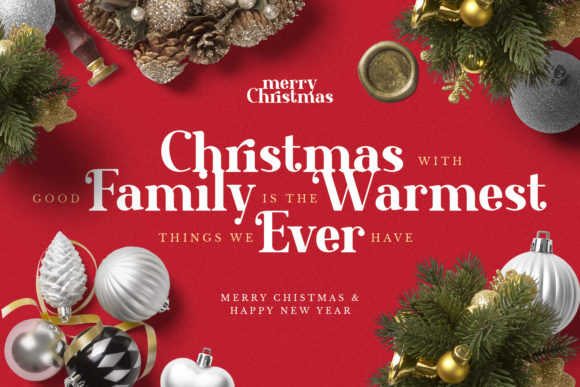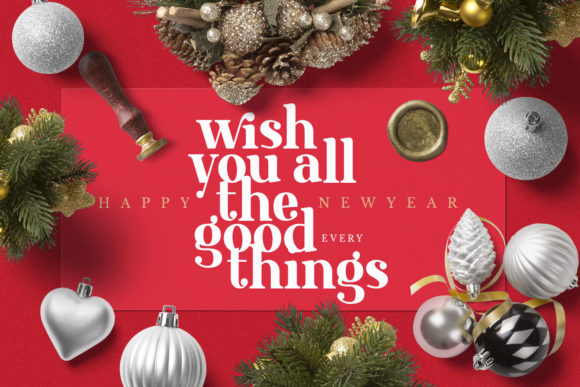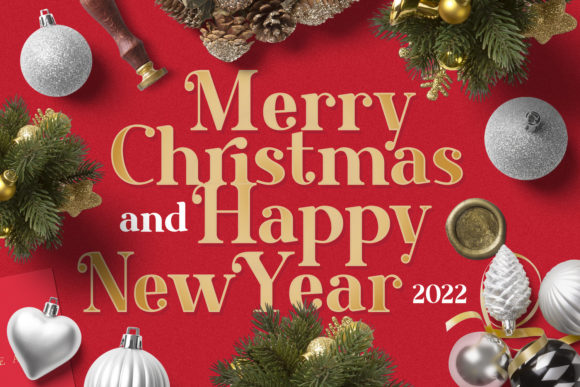
Introduction to Regale Font
You know that moment when you’re working on a creative project, and you’re stuck on the perfect font to make it pop? That’s exactly what happened to me when I was designing a t-shirt for a friend’s birthday party. I wanted something that would grab attention, but also convey a fun and playful vibe. After hours of scrolling through design resources, I stumbled upon the Regale Font – and it was love at first sight!
This adaptable display font is a game-changer for designers, offering a unique blend of style and versatility. With its cool and modern aesthetic, Regale Font is perfect for everything from sportswear logos to eye-catching advertisements. And the best part? It’s available for free download, making it an invaluable resource for designers on a budget. Whether you’re working on a high-quality design or just need a quick solution, Regale Font is sure to impress.
Key Features of Regale Font
- High-quality design resource ideal for creative projects and presentations.
- Transparent background for easy integration with any design or background.
- Regale Font is available in 6 styles, including bold, regular, and italic fonts.
- Each font file is in high-resolution (300 DPI) for crisp and clear display.
- Perfect for designers and artists looking for a unique and elegant design resource.
- Regale Font is a versatile design resource suitable for various creative projects, from logos to typography.
Honest Review: Regale Font
I recently had the chance to work with the Regale Font in a creative project and I must say, it’s a great addition to any designer’s arsenal. One of the standout features of this font is its high quality and sleek design. ✨ It’s perfect for titles, headings, and other typography-heavy elements in your design.
Here are some of the key benefits of using Regale Font:
- Easy to work with
That being said, I did notice a few limitations with Regale Font. ⚠️ For example, the font family is limited to a few weights and styles, which may not be ideal for projects that require a lot of customization. Additionally, the font may not be suitable for very small text sizes, as the letters can become difficult to read.
Overall, I’m impressed with Regale Font and would definitely recommend it to designers looking for a high-quality, free design resource. While it may have some limitations, it’s a great addition to any design toolbox.
Tips for Getting the Most Out of Regale Font
To get the most out of Regale Font, use it in conjunction with other design elements, such as graphics and images. You can also experiment with different font sizes and colors to create a unique look.
Common Use Cases for Regale Font
The Regale Font is commonly used in creative projects, such as graphic design, digital art, and typography. It’s also a great choice for use in presentations, documents, and social media graphics.